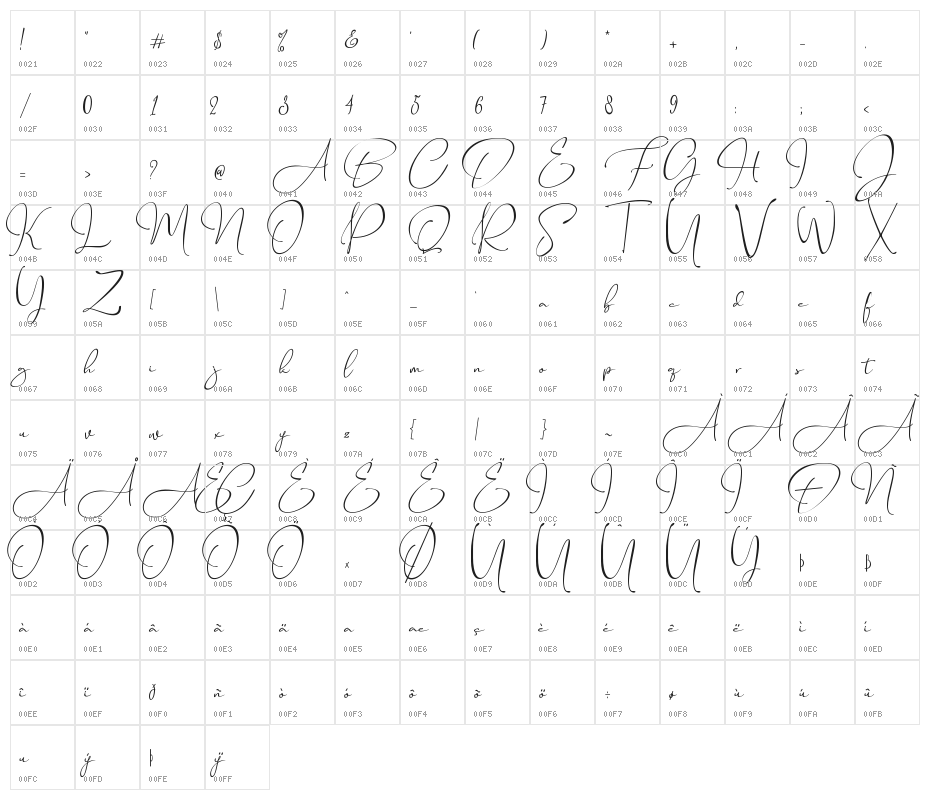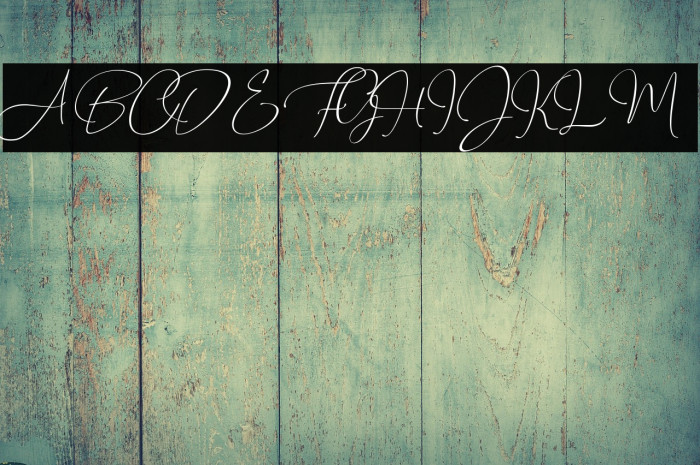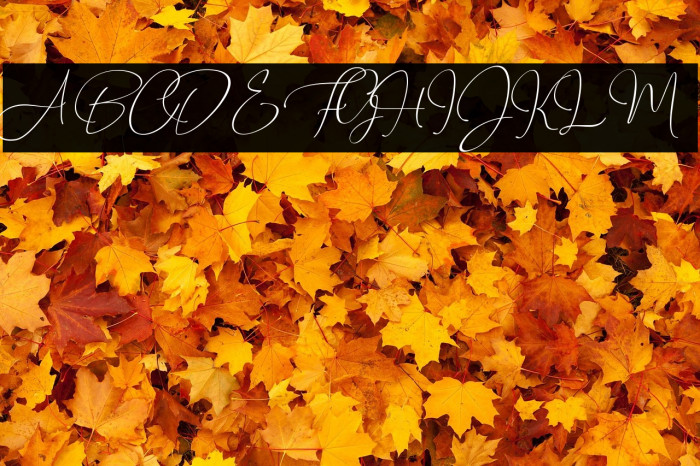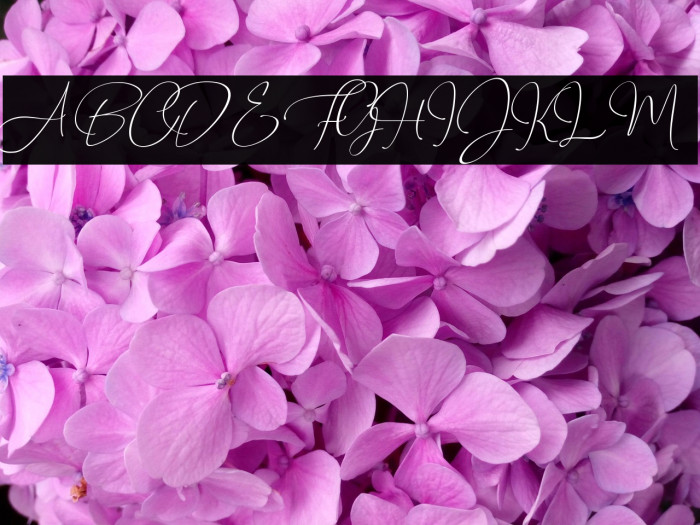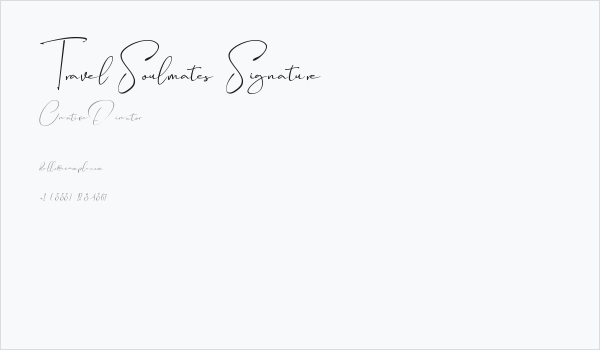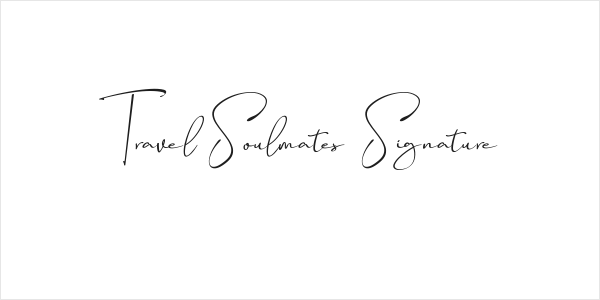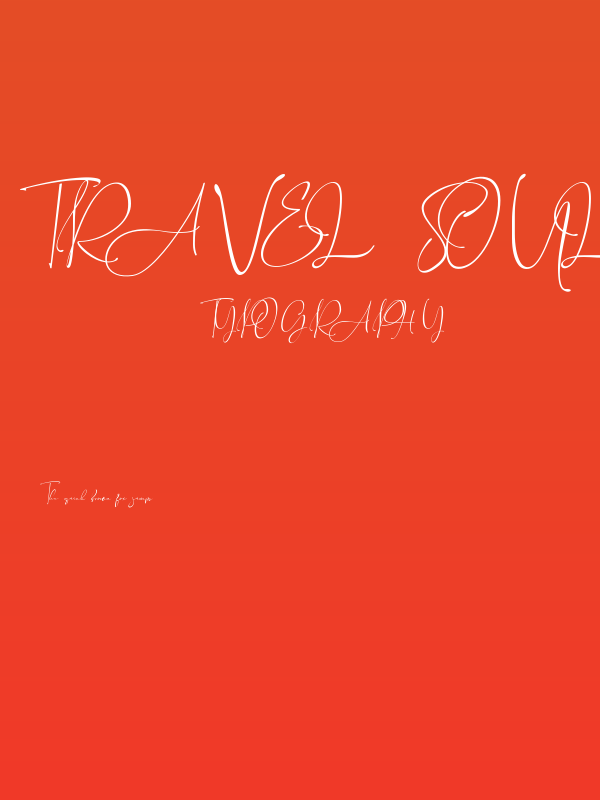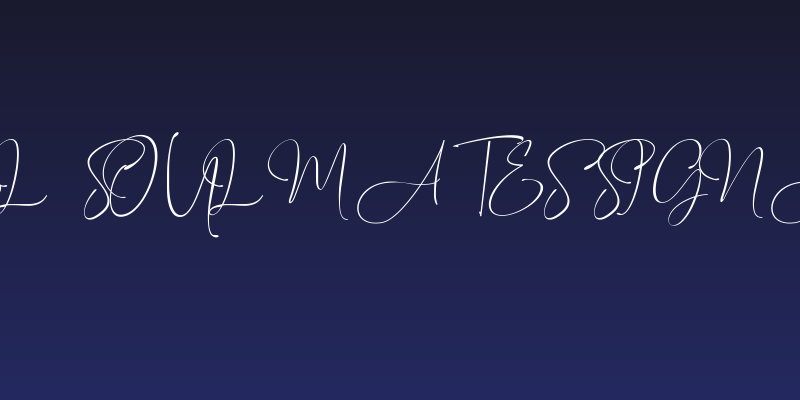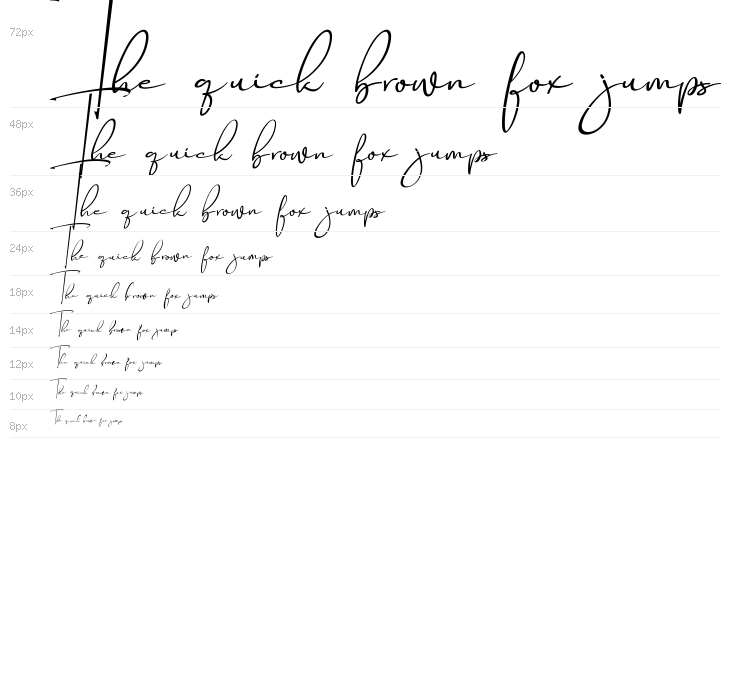
Travel Soulmates Signature Font
Travel Soulmates Signature Description
This elegant and flowing script font exudes a sense of sophistication and grace. The characters are intricately designed with a fluid, handwritten style that mimics the natural movement of a calligrapher's pen. The uppercase letters are tall and slender, with sweeping curves and delicate loops, while the lowercase letters maintain a consistent flow, enhancing the overall aesthetic. The numerals and special characters are crafted with the same attention to detail, ensuring a cohesive look across all text. This font is perfect for adding a personal touch to any project, offering a sense of warmth and charm.
| Overall Style | Elegant, Handwritten |
| Proposed Projects | Ideal for wedding invitations, personal branding, greeting cards, and elegant packaging designs. |